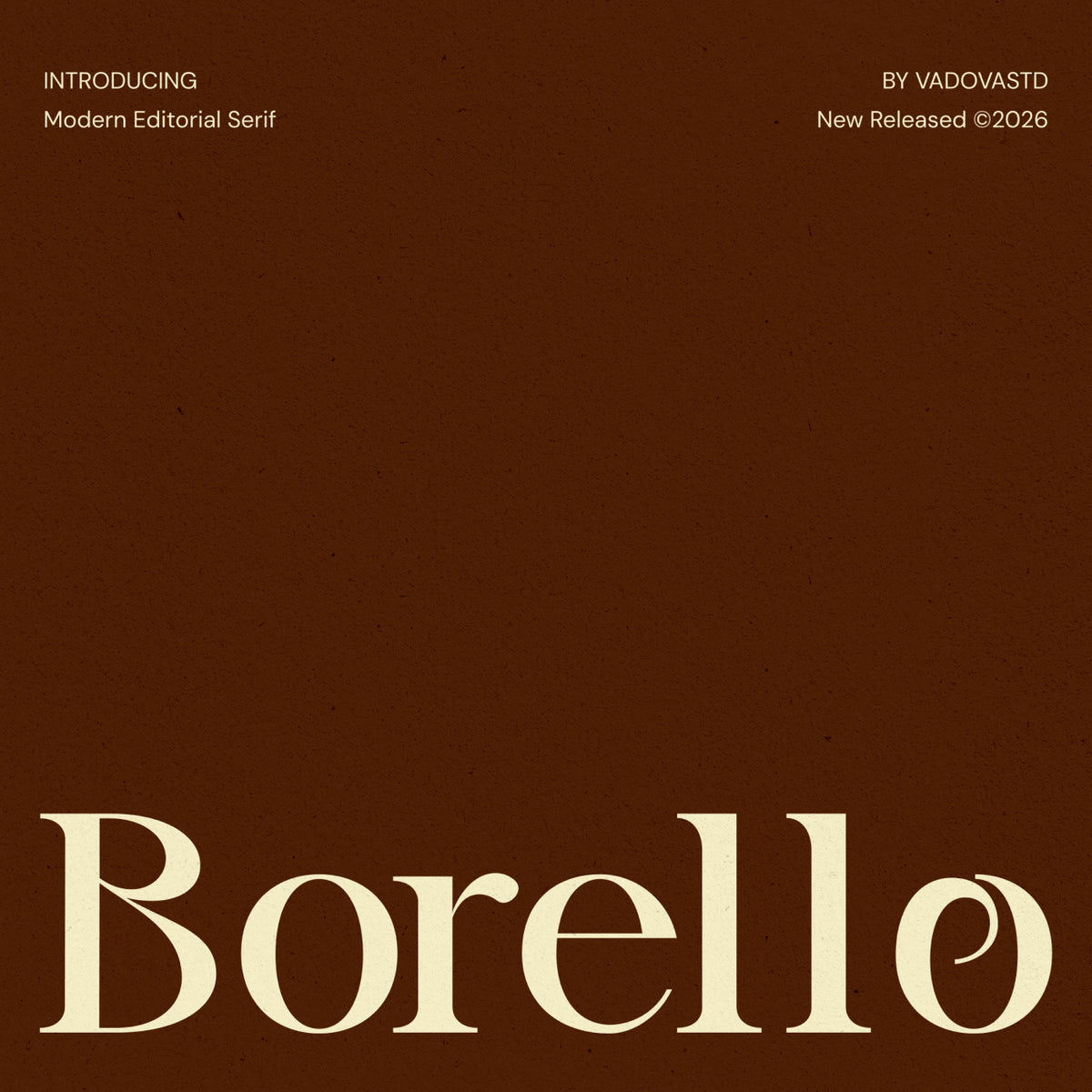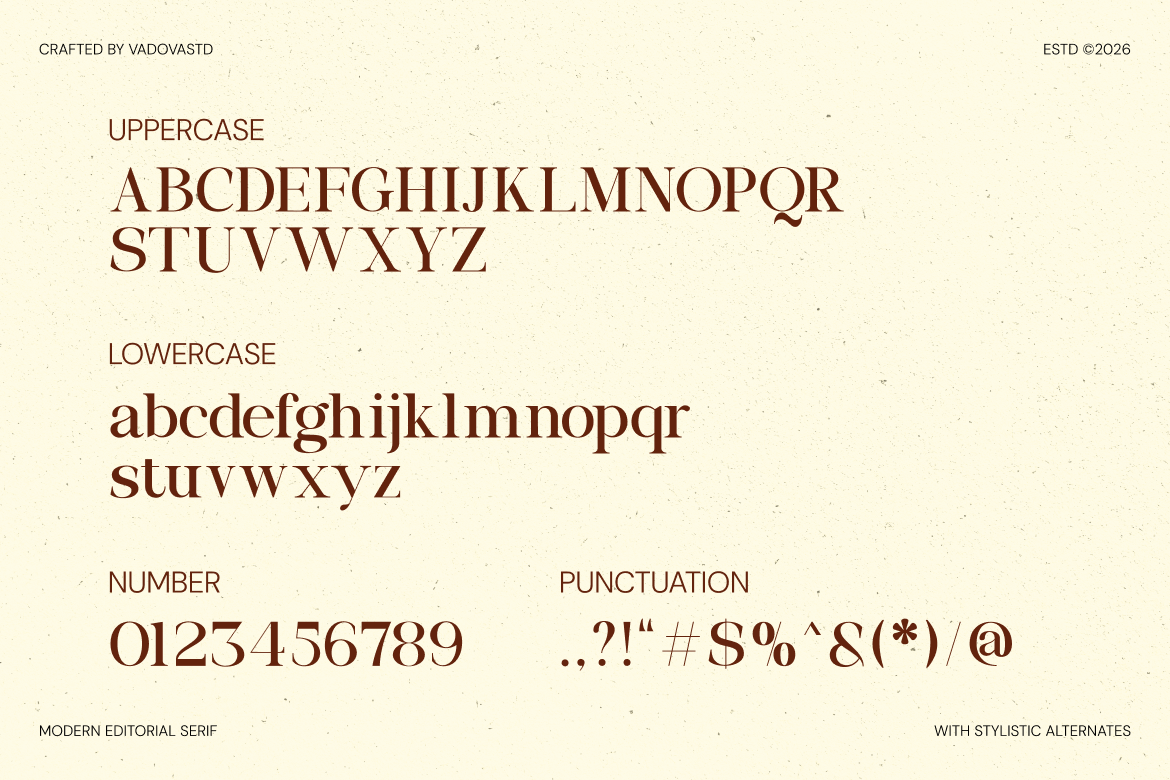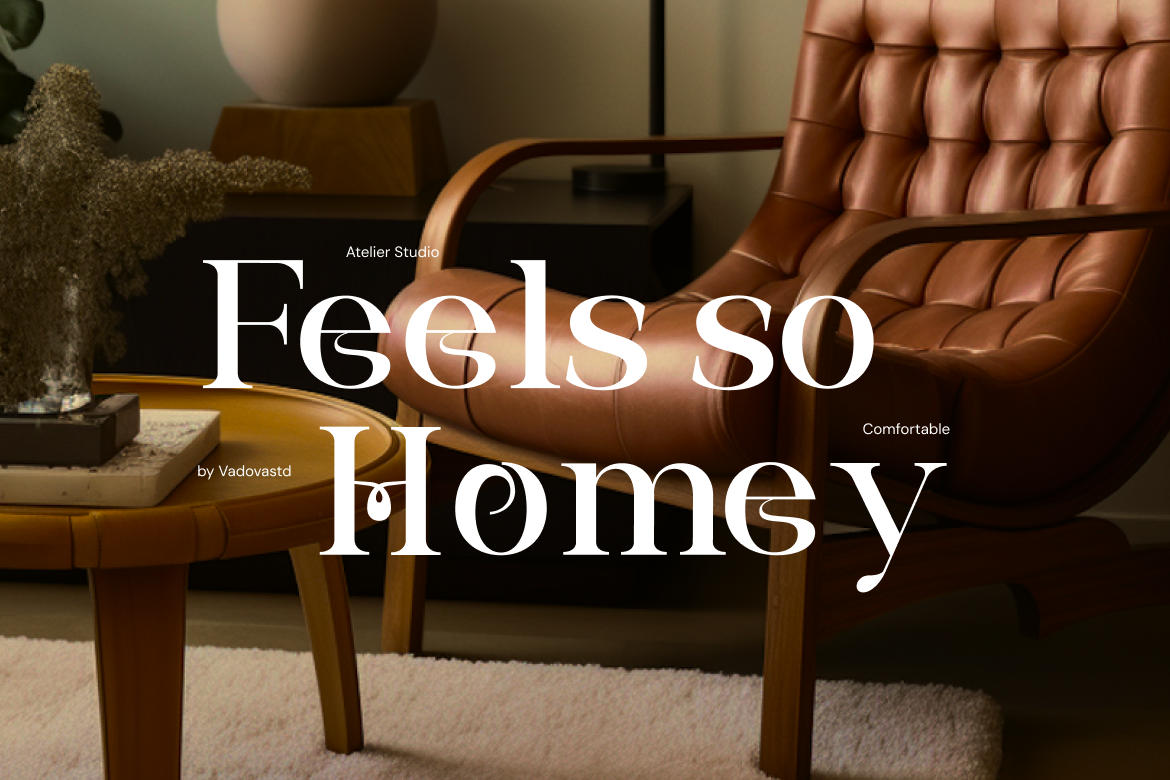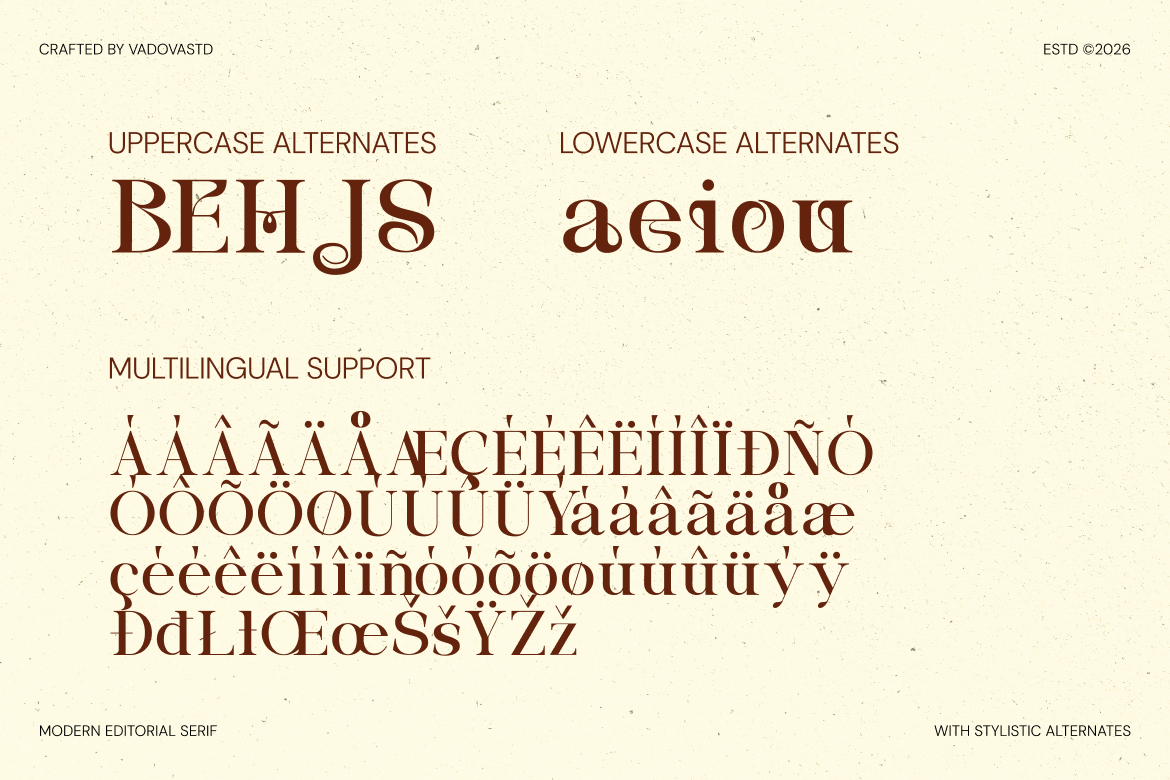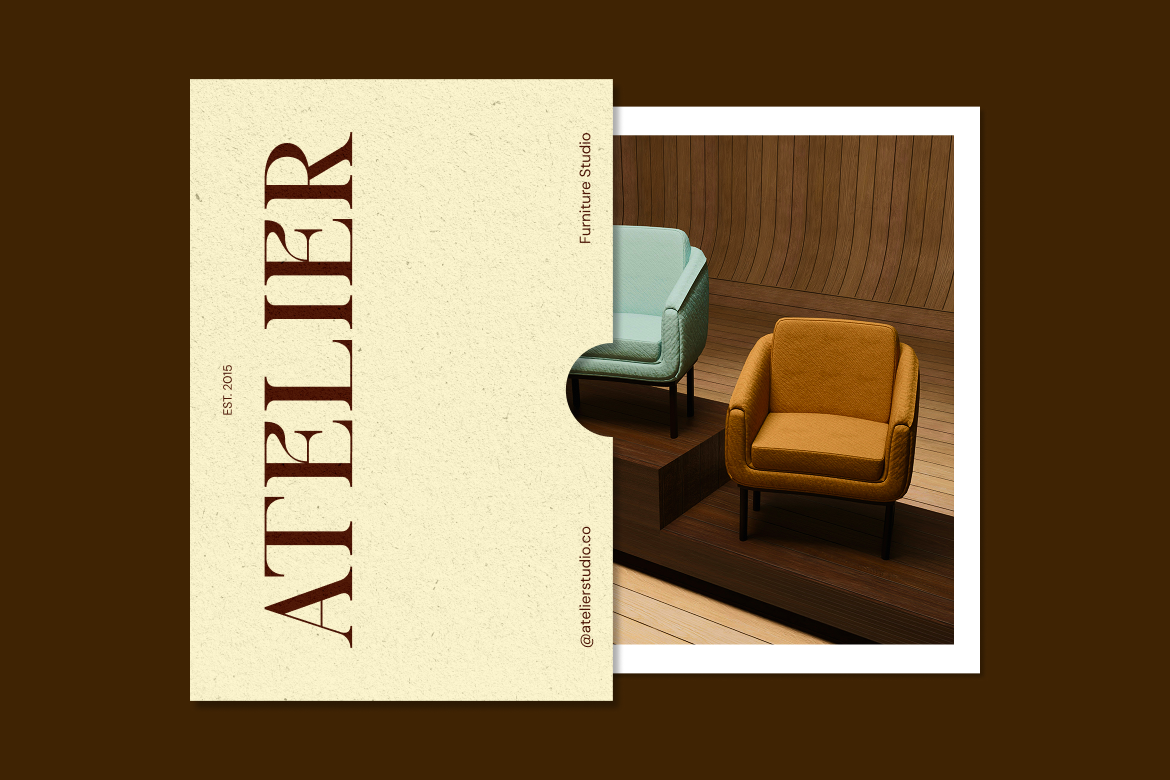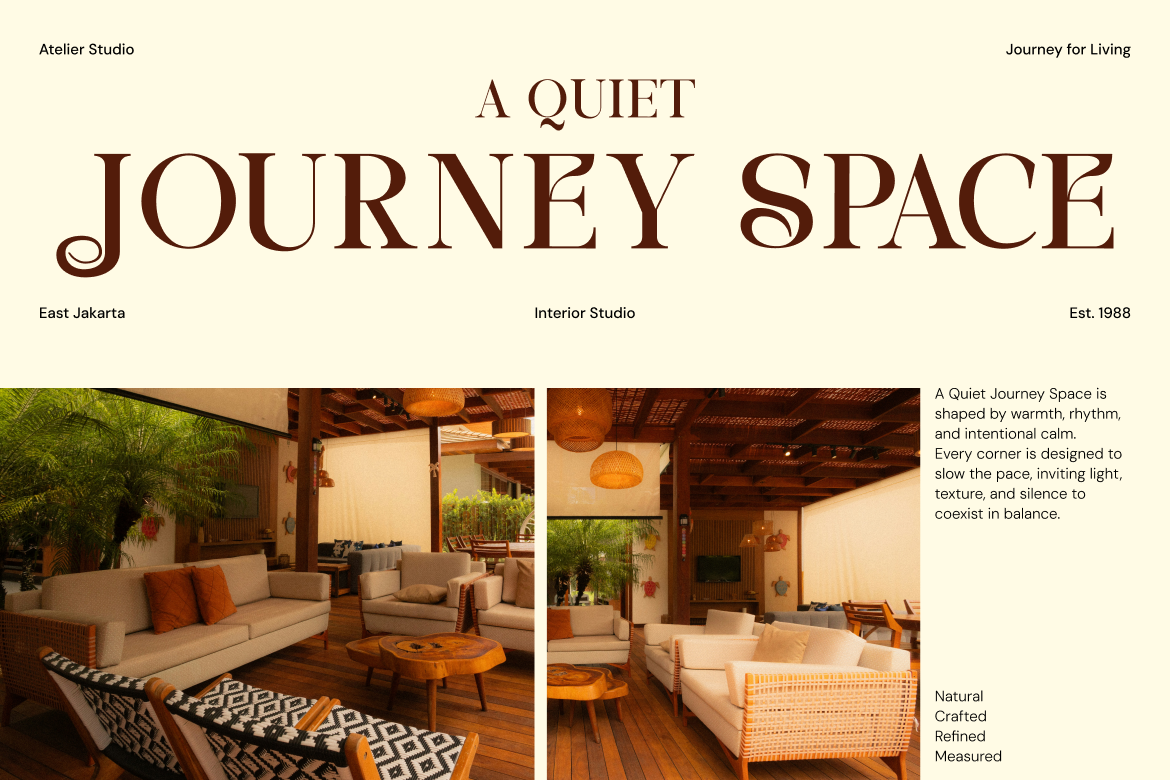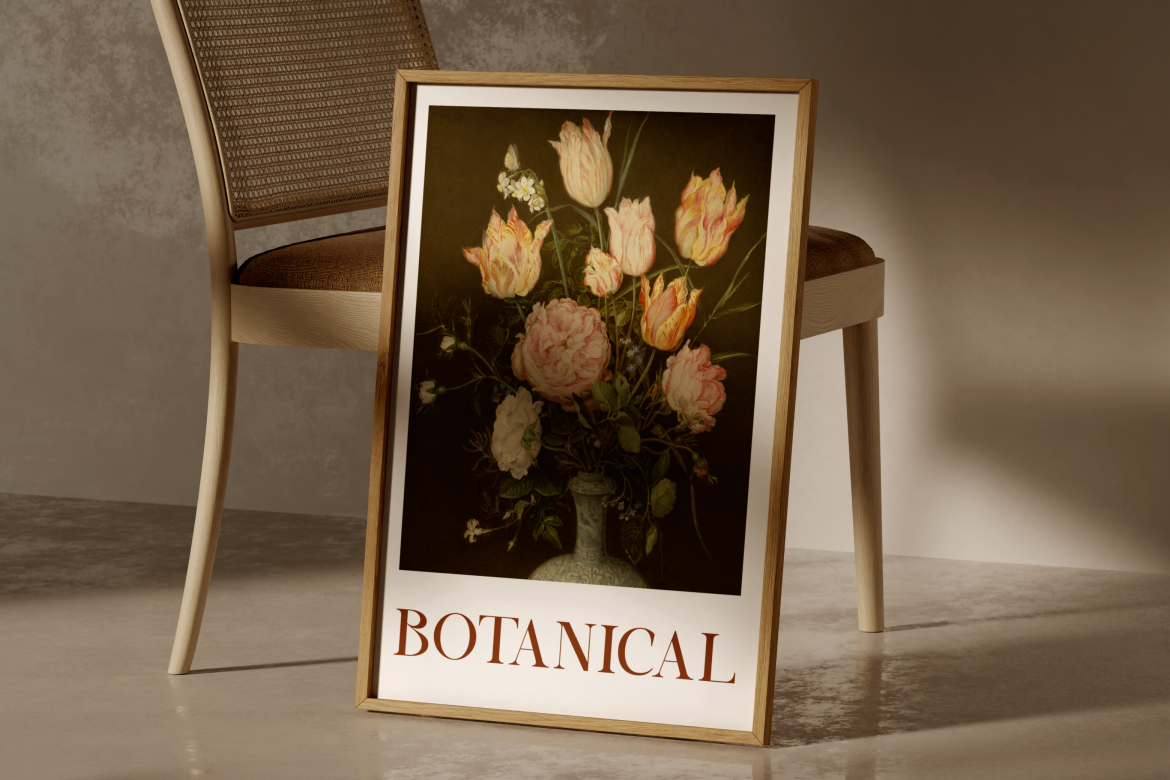
Borello Modern Editorial Serif Font
Borello Modern Editorial Serif Font is a sophisticated typeface that blends contemporary editorial aesthetics with timeless serif craftsmanship. Featuring high-contrast strokes, elegant curves, and distinctive character details, it delivers a refined visual presence that feels both modern and luxurious.Borello includes uppercase and lowercase characters, numerals, punctuation, multilingual support and OpenType features. Designed for professional use, it performs beautifully in headlines, logos, magazine layouts, product packaging, social media graphics, and sophisticated marketing materials.
The font showcases graceful letterforms, stylish terminals, and carefully balanced proportions that create strong visual impact in large-scale typography. Subtle decorative details, including unique character endings and refined serif construction, add personality while maintaining excellent readability. Its editorial-inspired design makes it suitable for premium branding, fashion publications, luxury packaging, and high-end visual identities.
Borello Modern Editorial Serif Font is a high-contrast serif typeface with uppercase and lowercase characters, numerals, punctuation, standard ligatures and alternates, and multilingual support. It is available in OTF, TTF, and WOFF formats with multiplatform compatibility.